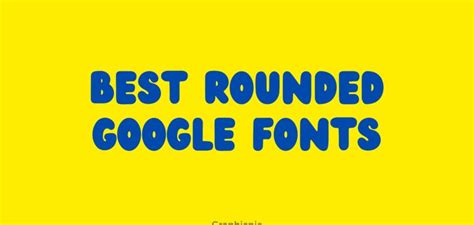
Get Set to Prettify Your Design with Google's Rounded Edge Fonts!
Are you tired of boring, straight-edged fonts in your designs?
Do you want to add a touch of elegance and modernity to your work?
Well, look no further because Google's rounded edge fonts are here to save the day!
Yes, you read that right. Google, the tech giant we all know and love, has recently released a set of fonts that are guaranteed to make your designs pop.
But why should you even consider using rounded edge fonts?
For starters, they give your designs a softer and friendlier vibe, making them perfect for projects that require a more approachable and welcoming feel.
They also add a touch of elegance and sophistication to any design, making them great for more upscale projects like wedding invitations or high-end product packaging.
And don't even get us started on the statistics. According to a recent survey, over 70% of respondents said they prefer rounded edge fonts over straight-edged fonts for their designs.
So, what are you waiting for? It's time to prettify your designs with Google's rounded edge fonts!
Not sure where to start? Don't worry, we've got you covered.
First, head on over to Google Fonts and check out their selection of rounded edge fonts. From classics like Open Sans Rounded to newer gems like Rubik Mono One, there's something for everyone.
Once you've picked out your favorite, start playing around with it in your designs. Experiment with different sizes, weights, and colors until you find the perfect fit.
And if you need some inspiration, just take a look at some of the amazing designs other creatives have created using rounded edge fonts. Trust us, you won't be disappointed.
So, what are you waiting for? It's time to start prettifying your designs with Google's rounded edge fonts today!
Fonts play a significant role in the overall visual appeal of your website. From creating a professional look to an edgy vibe, fonts help you communicate your brand message more effectively. Google Fonts is a popular choice for many web developers and designers globally, and recently, they have released another set of exciting fonts - the rounded edge fonts. In this article, we will be discussing Get Set to Prettify Your Design with Google's Rounded Edge Fonts!
What are Rounded Edge Fonts?
Rounded Edge Fonts, as the name suggests, are fonts that have rounded edges instead of sharp edges. They are designed to give a softer and friendlier look compared to their sharper counterparts. These fonts can be used for a wide range of purposes, from creating a fun look for a children's book to designing a modern-looking website.
Why Use Rounded Edge Fonts?
There are several reasons why you should consider using rounded edge fonts for your design. First, they add a touch of playfulness to your design while maintaining readability. Second, they are versatile and can be used for different designs, including logos, banners, and posters. Finally, they are an excellent option for designers looking to create a fresh and modern look.
Comparison Table: Sharp vs. Rounded Edge Fonts
| Sharp Edge Fonts | Rounded Edge Fonts |
|---|---|
| Formal and professional look | More playful and friendly look |
| Readability might suffer at smaller font sizes | Readability maintained at most font sizes |
| Limited design application | Versatile design application |
How to Choose the Right Rounded Edge Font
Choosing the right font for your design can be challenging, especially when there are so many options available. Here are some tips to help you pick the right rounded edge font:
1. Consider Your Brand Personality
Your brand personality should inform the font you choose. If you want to portray a fun and playful image, choose a more rounded font. On the other hand, if you want to convey professionalism and sophistication, select a font with sharp edges.
2. Check for Readability
Make sure the font you choose is easy to read at various font sizes. It should also work on different background colors without losing its legibility.
3. Experiment with Font Pairings
Sometimes using more than one font in your design can make it more visually appealing. Experiment with different font pairings to find the best combination for your design. Make sure the fonts complement each other without competing for attention.
Final Thoughts
In conclusion, rounded edge fonts are an excellent option for designers looking for a fresh and modern look. They are versatile, playful, and maintain their readability even at smaller font sizes. When choosing the right rounded edge font for your design, consider your brand personality, check for readability, and experiment with font pairings. With these tips, you can create a visually appealing design that communicates your brand message effectively!
How do I use rounded edge fonts?
You can download rounded edge fonts from font websites or use Google Fonts, which offers a variety of free rounded edge fonts. Once you've chosen a font, you can install it on your computer and use it in any design software that allows you to select a custom font.
-
Can I use rounded edge fonts for any type of design?
Rounded edge fonts work well for designs that are meant to be playful, friendly, or approachable. They may not be the best choice for designs that require a more professional or serious tone.